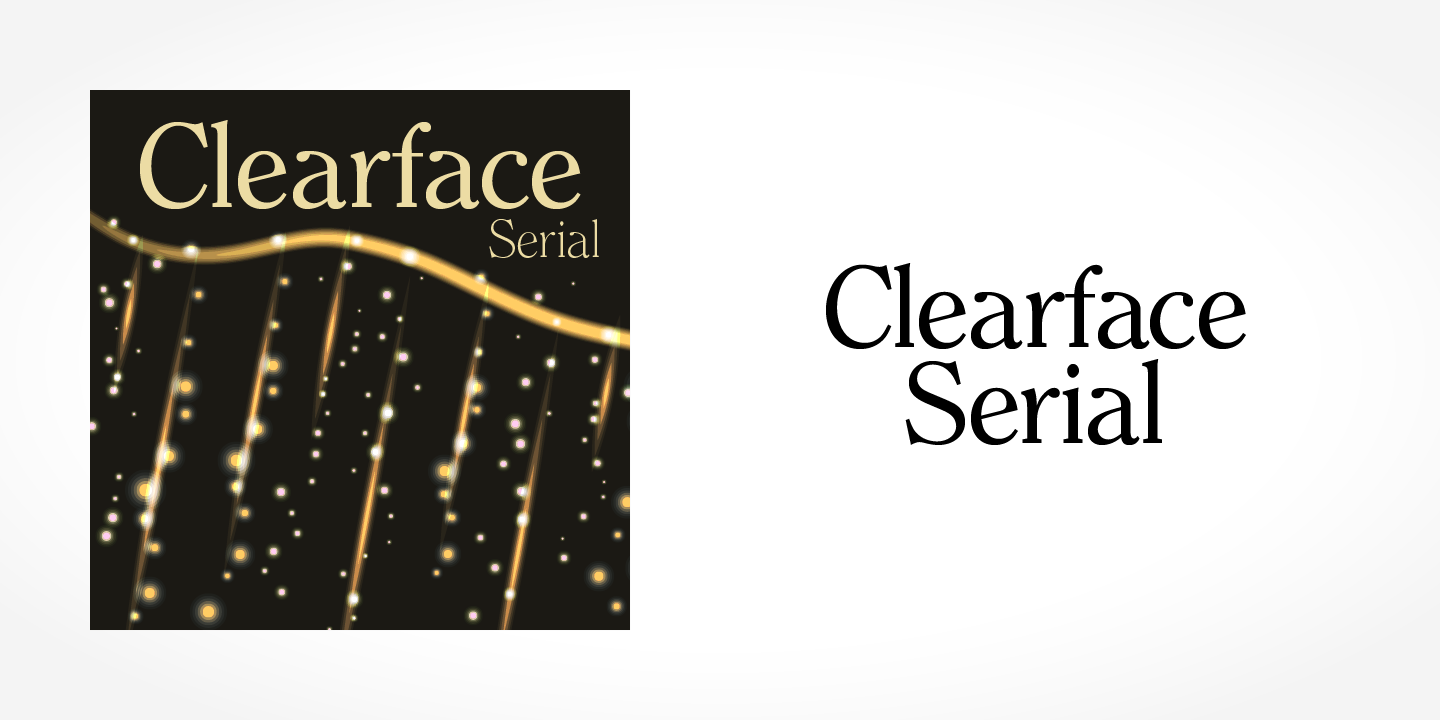
The Clearface Serial Font is perfect for traditional newspaper layouts, classic book publishing, scholarly journal designs, academic publications, formal documentation, professional legal materials, institutional communications, and distinguished editorial projects. This authoritative typeface excels in projects for publishing houses, educational institutions, legal firms, government agencies, and organizations requiring clear, reliable typography that conveys credibility, readability, and time-tested editorial excellence.
What makes the Clearface Serial Font exciting is its exceptional balance of traditional publishing authority with superior legibility and timeless editorial sophistication. The font features carefully crafted letterforms with optimized proportions and proven readability characteristics that have been refined through decades of publishing excellence. Its classical character and editorial heritage make it perfect for organizations seeking to establish trust, authority, and professional distinction through typography that has stood the test of time. The font's publishing legacy and proven performance create immediate credibility in formal contexts.
The Clearface Serial Font family includes editorially-refined variations: Light Text, Regular Body, Medium Subhead, Bold Headline, Heavy Display, and Italic versions. Each weight maintains exceptional readability while offering different hierarchical levels for complex publishing layouts and professional documentation. The family also features old-style numerals, professional ligatures, editorial symbols, and traditional typographic refinements essential for serious publishing and institutional communications.
Whether you're developing institutional brand identities, creating professional publishing materials, or designing authoritative promotional campaigns, the Clearface Serial Font Free Download provides the ultimate solution for projects requiring proven, reliable typography. This exceptional typeface brings genuine publishing heritage to design work, making it an indispensable resource for designers working with educational institutions, publishing companies, legal organizations, and establishments demanding the highest standards of editorial excellence and typographic reliability.